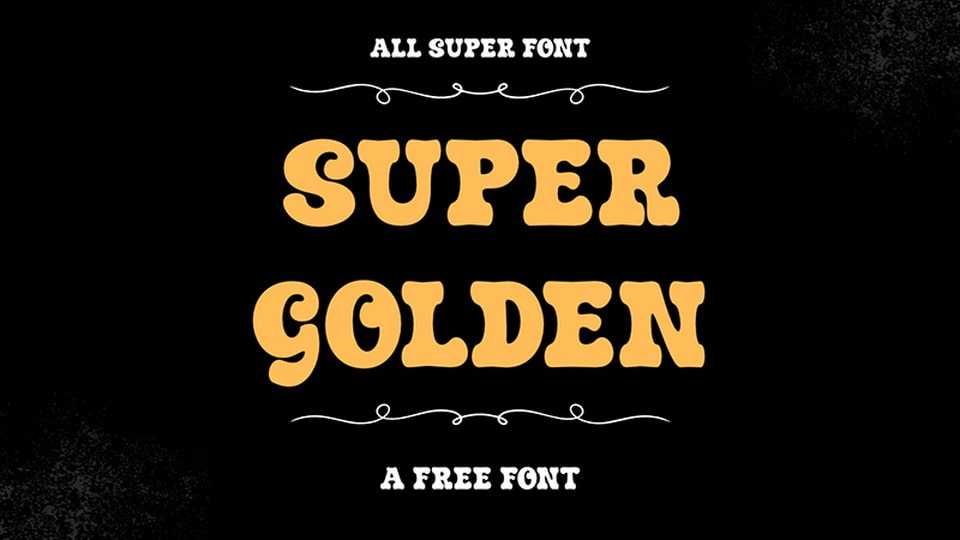
Download Super Golden font, a bold and bubbly retro typeface with a heart of gold. Its chunky curves and playful serifs echo vintage poster vibes, old-school packaging, and 70s sunshine energy.